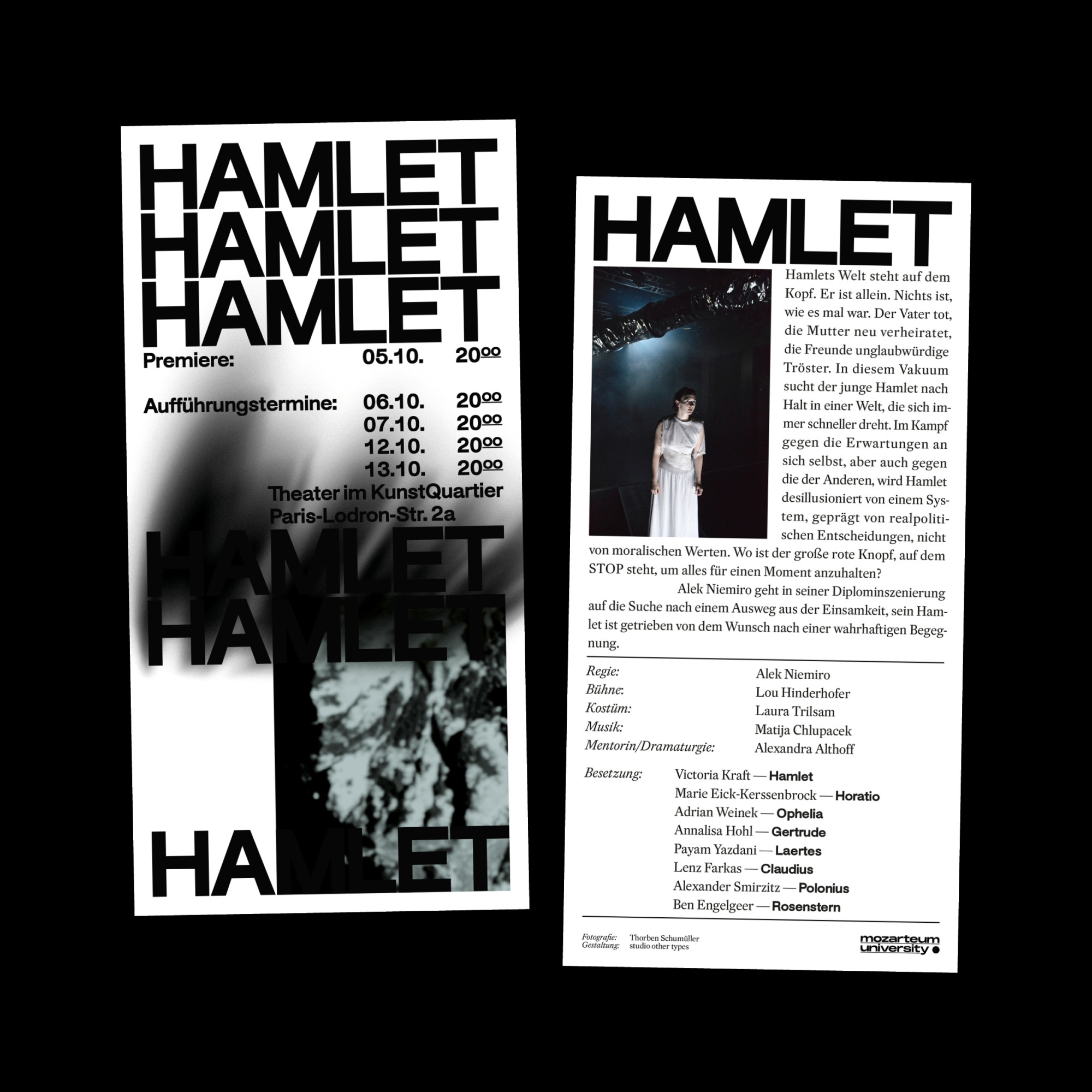
The poster series Salzburger Jahre promotes the plays of theater director Alek Niemiro, which he directed and directs during his studies at the Thomas Bernhard Institute of the University of Mozarteum Salzburg.Â
The abstract image layer (a cropped section of a screenshot of the Untersberg, in the south-west of Salzburg) is complemented by a distinctive image that corresponds to each respective play. Similar typographic elements recur in the poster series.
The final poster, which was created on the occasion of the director's diploma, combines the darkness of the play Hamlet and takes up the abstract image level of the previous posters one last time.
The title of the piece appears repeatedly and is interrupted by the performance dates and the participants. In the middle area of ​​the poster, the title disappears into the darkness, a shadow that symbolizes the protagonist's conflict, revenge and inner conflict.
Typeface: Default Sans by Scott Vander Zee